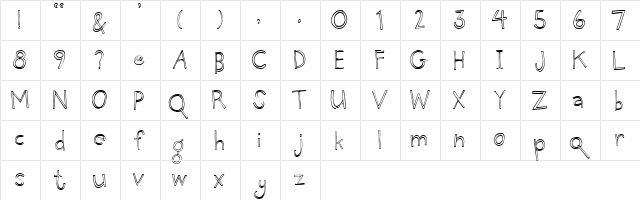
2Peas Open Spaces Regular
Design Context for 2Peas Open Spaces Typeface
2Peas Open Spaces is a composed and adaptable typeface that performs quietly and consistently across a wide range of design contexts.